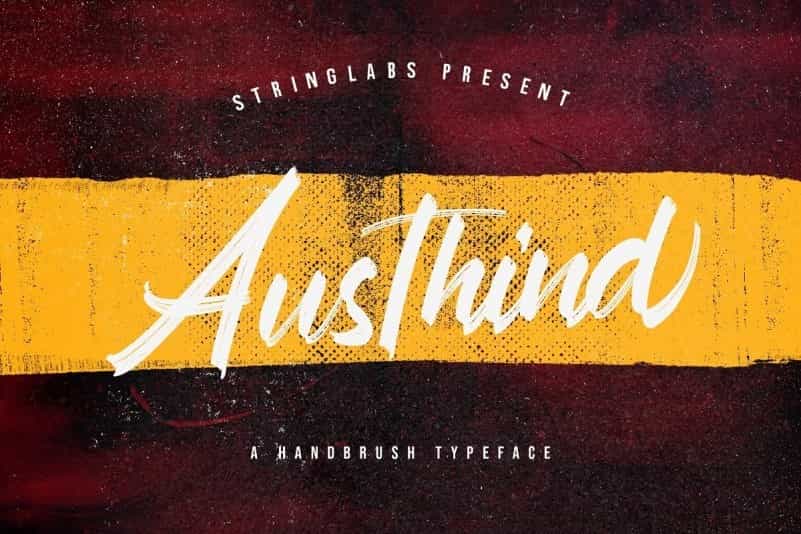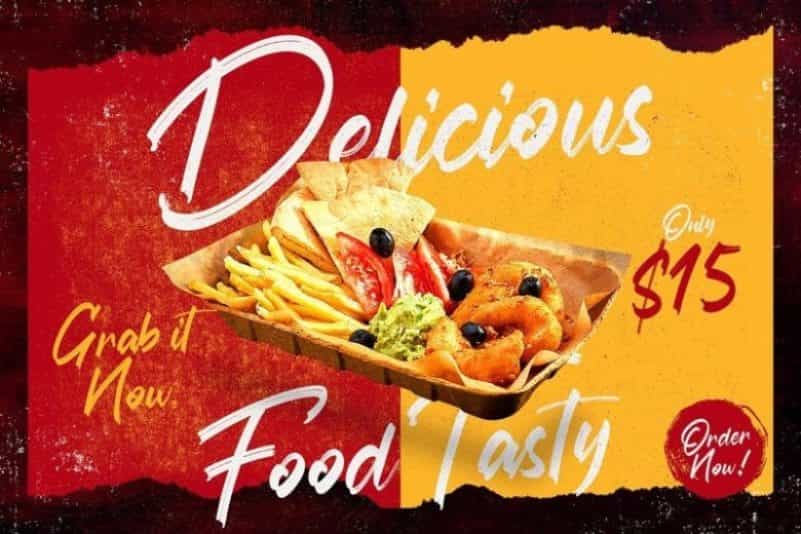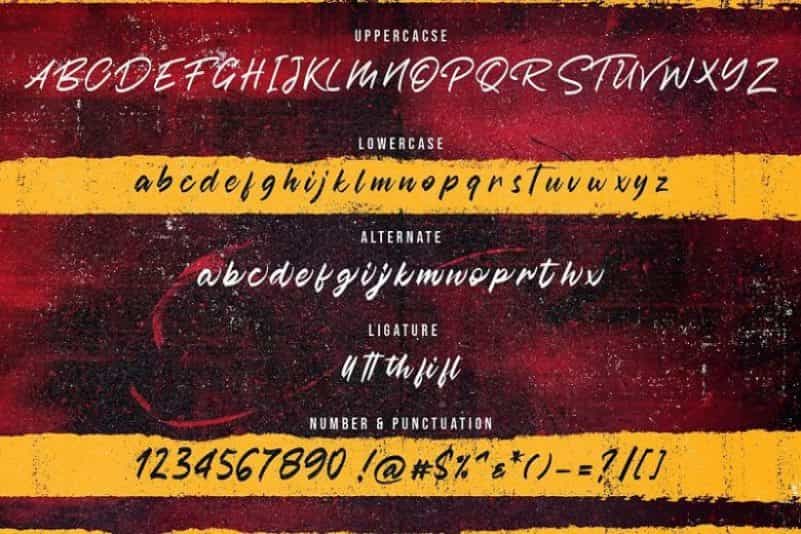
Austhind is an elegant script font that features a chic hand-drawn style. The Austhind font is made using digital brush strokes give this font a unique look and unique. This font is ideal for fashion brands, wedding invitations, business cards as well as logo branding signature, and finally calligraphy.